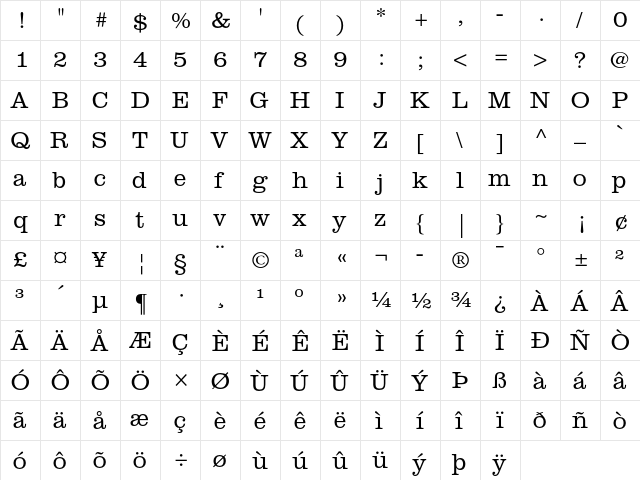
Clarendon Light
Design Context for Clarendon Typeface
Clarendon combines the readability of serif typography with the visual weight of a slab construction, resulting in a typeface that feels both authoritative and approachable. The delicate stroke weight brings airiness and refinement to layouts.
Works well in editorial design, news publishing, impactful branding, and poster typography.
Pro Tip: Try Clarendon set tight in headlines for a classic editorial feel. Its slab serifs create strong horizontal rhythm that anchors a page layout.